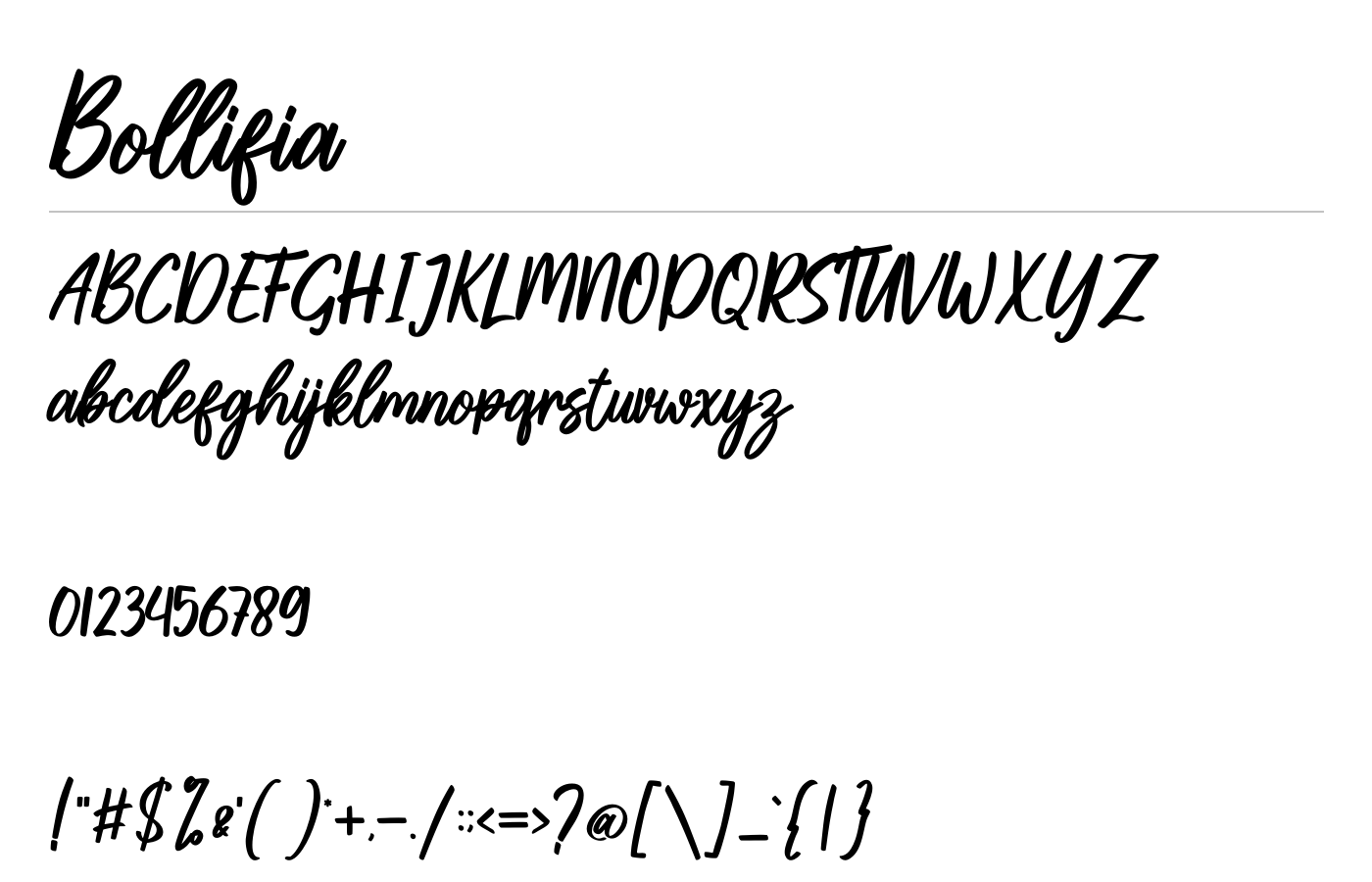
Bollifia is a lively and modern script font with a casual yet elegant feel, characterized by its smooth, flowing strokes and slightly condensed letterforms. Its handwritten style, featuring both upper and lowercase letters with a natural, organic rhythm, makes it perfect for adding a personal, friendly touch to branding, invitations, and creative projects. This font works especially well for designs that seek a blend of warmth and sophistication without sacrificing readability.
Bollifia Font
About Bollifia Font